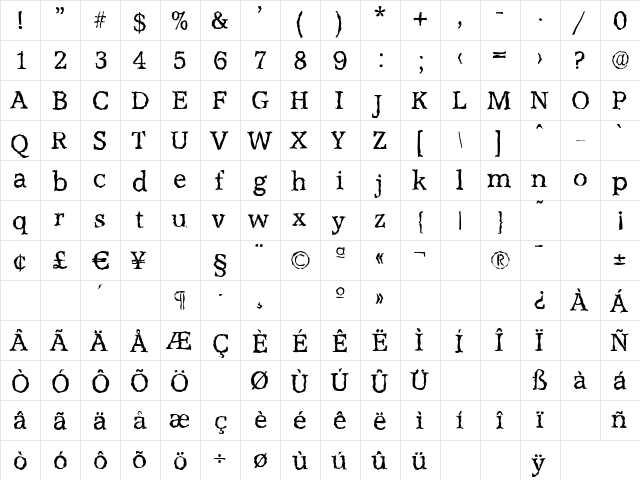
AccoladeRandom Regular
Design Context for AccoladeRandom Typeface
AccoladeRandom takes a measured approach to typography — its balanced proportions and neutral character make it a reliable workhorse for both digital and print work.
Pro Tip: Use AccoladeRandom in both headline and body roles to test its range before committing to a single application.